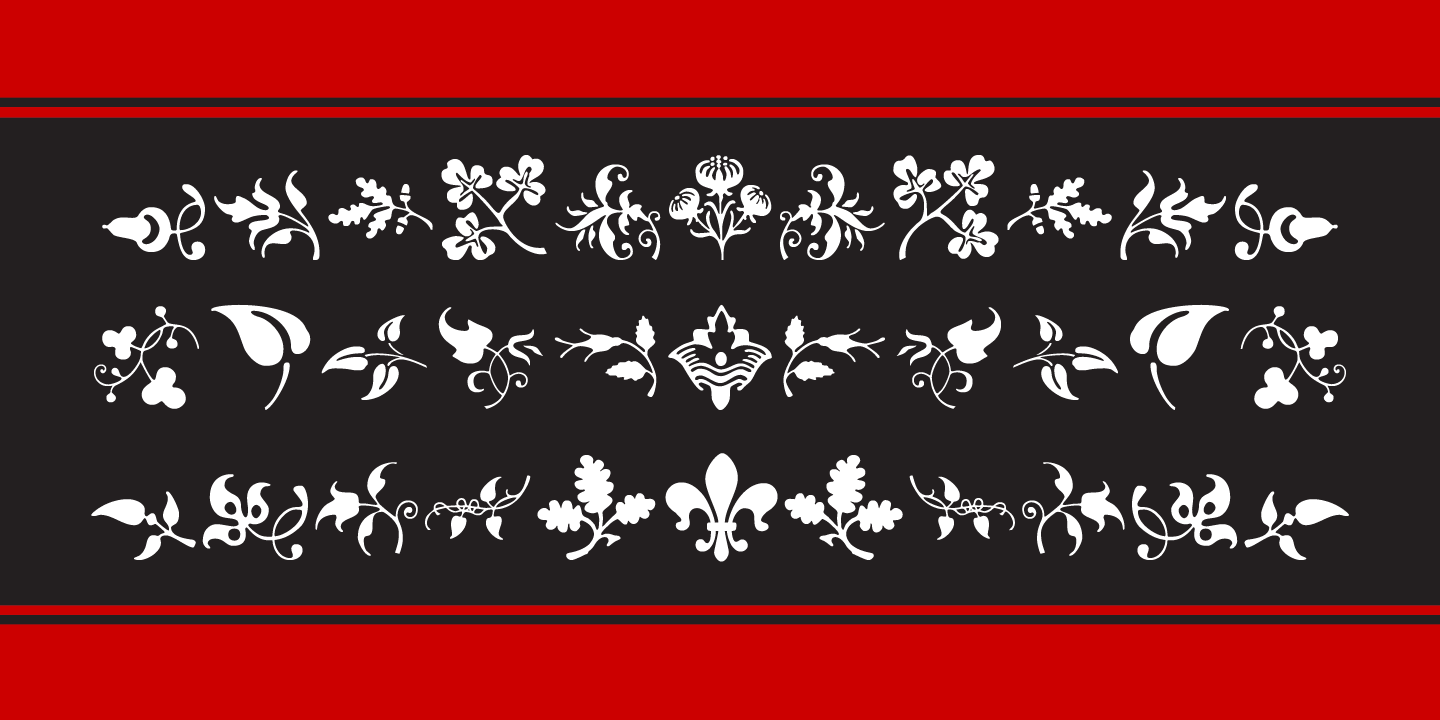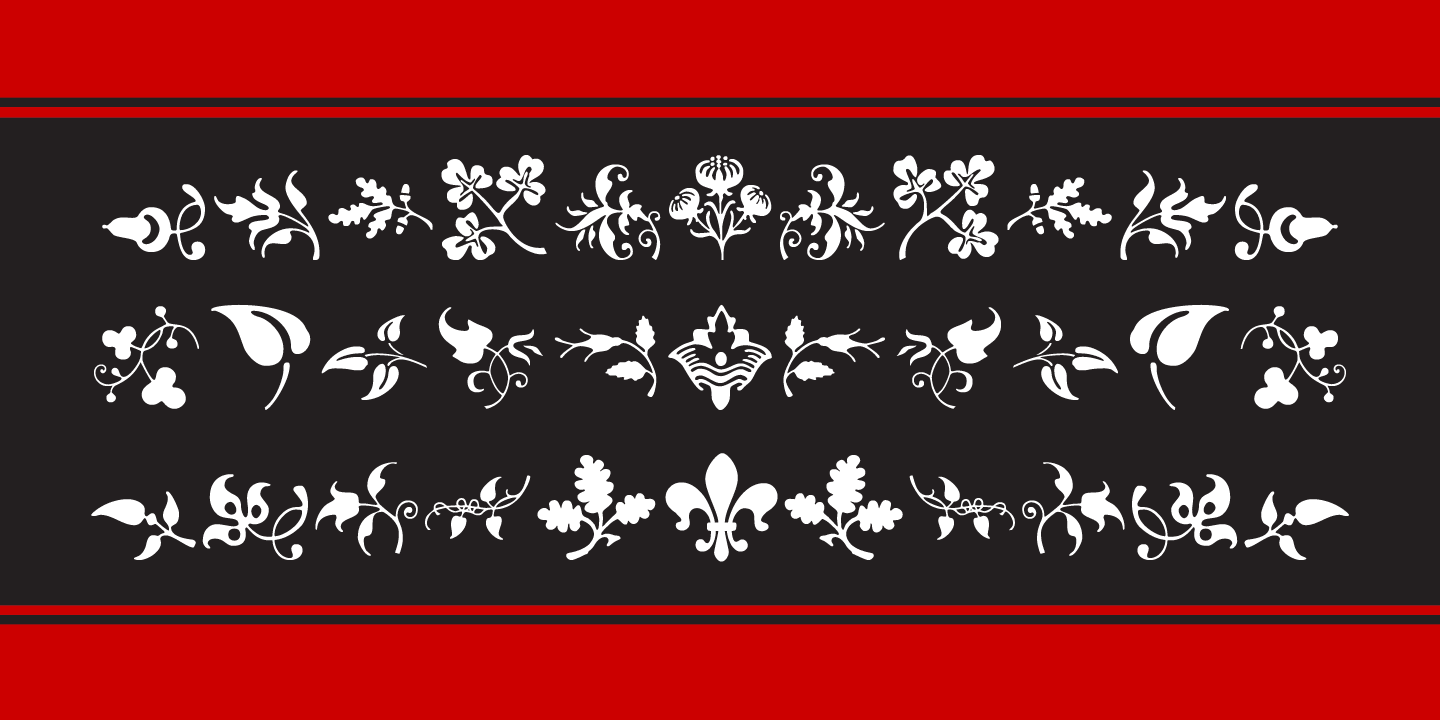
Castle Fleurons is a dingbat font published by CastleType.
A delightful collection of more than 200 classic fleurons. Useful for adding a tasteful accent to your documents or for creating borders. Left-facing fleurons are complimented by right-facing ones (and vice versa). Some fleurons have four 90-degree rotations for creating interesting tiling patterns. Although this font takes advantage of Unicode, all fleurons have been replicated into normal keyboard positions for access from applications that are not Unicode-savvy.